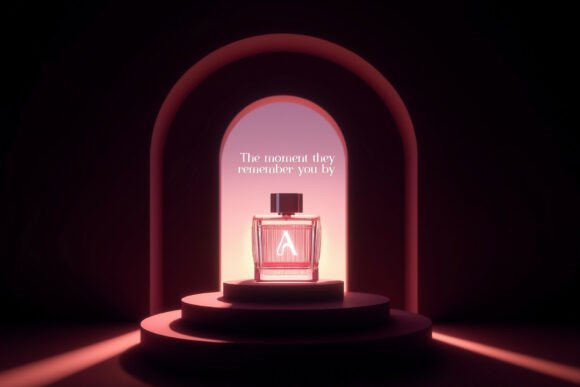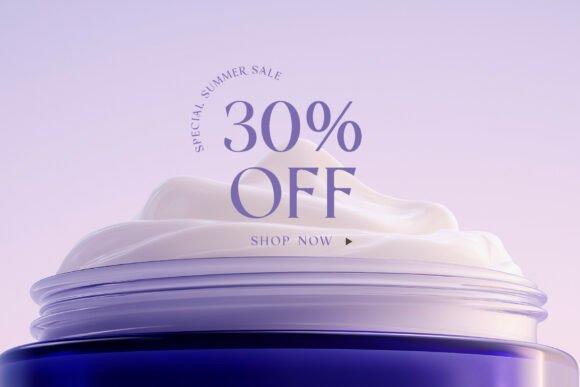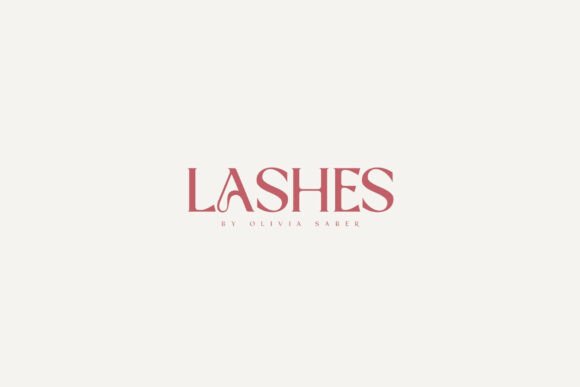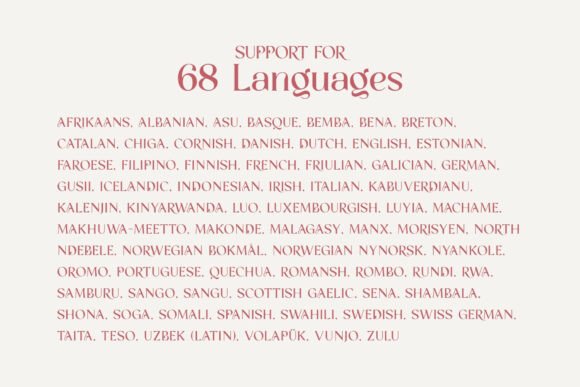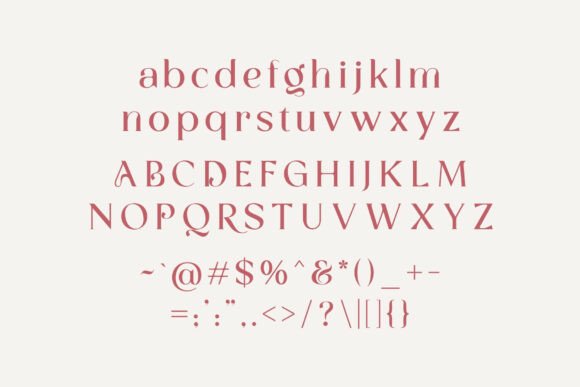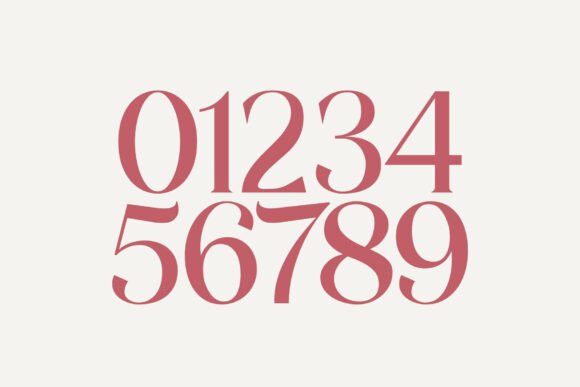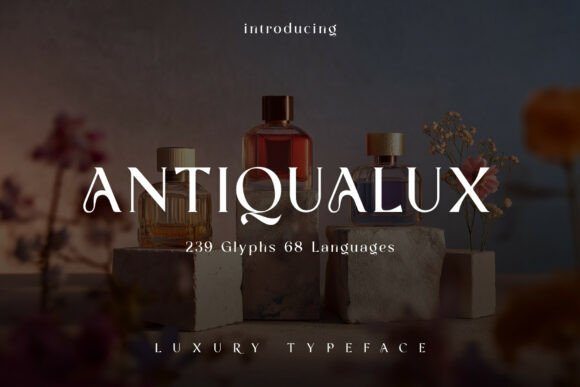
Introducing Antiqualux Font: Elevate Your Design Projects with Timeless Elegance
In the world of typography, a well-crafted font can make all the difference in elevating a design project from ordinary to extraordinary. For brands that demand refinement and sophistication, the Antiqualux font is an exceptional choice. This luxurious and impeccably crafted typeface is designed to bring a touch of elegance and high-end appeal to any design it touches.
Unparalleled Craftsmanship
Antiqualux boasts 239 beautifully designed glyphs, supporting 68 languages, making it a versatile and comprehensive typeface suitable for a wide range of design applications. Every curve, serif, and stroke has been meticulously shaped with precision, resulting in a graceful flow that radiates confidence and sophistication. The typeface’s subtle contrasts and commanding letterforms exude a level of craftsmanship that instantly elevates any design.
Timeless Elegance Meets Contemporary Sophistication
Antiqualux seamlessly blends timeless elegance with contemporary sophistication, creating a visual experience that feels both iconic and unforgettable. This typeface is perfect for brands that want to convey a sense of luxury, refinement, and high-end quality. Whether you’re designing for cosmetic companies, luxury fashion houses, modern boutiques, beauty products, magazines, packaging, or premium branding, Antiqualux adds a polished, upscale presence that turns ordinary projects into statements of class.
As a designer or crafter, you understand the importance of typography in communicating a brand’s message and aesthetic. Antiqualux is designed to help you create stunning visual experiences that leave a lasting impression. With its wide range of glyphs and language support, you can confidently use Antiqualux for various design projects, from branding and advertising to packaging and editorial design.
Key Features of Antiqualux Font
- 239 beautifully designed glyphs: Providing a wide range of characters and symbols to ensure versatility and flexibility in your designs.
- Supports 68 languages: Making it an excellent choice for global brands and multilingual design projects.
- Timeless elegance and contemporary sophistication: Blending classic refinement with modern flair to create a unique visual experience.
- Precision-crafted curves, serifs, and strokes: Resulting in a typeface that exudes confidence, sophistication, and high-end appeal.
Why Choose Antiqualux Font?